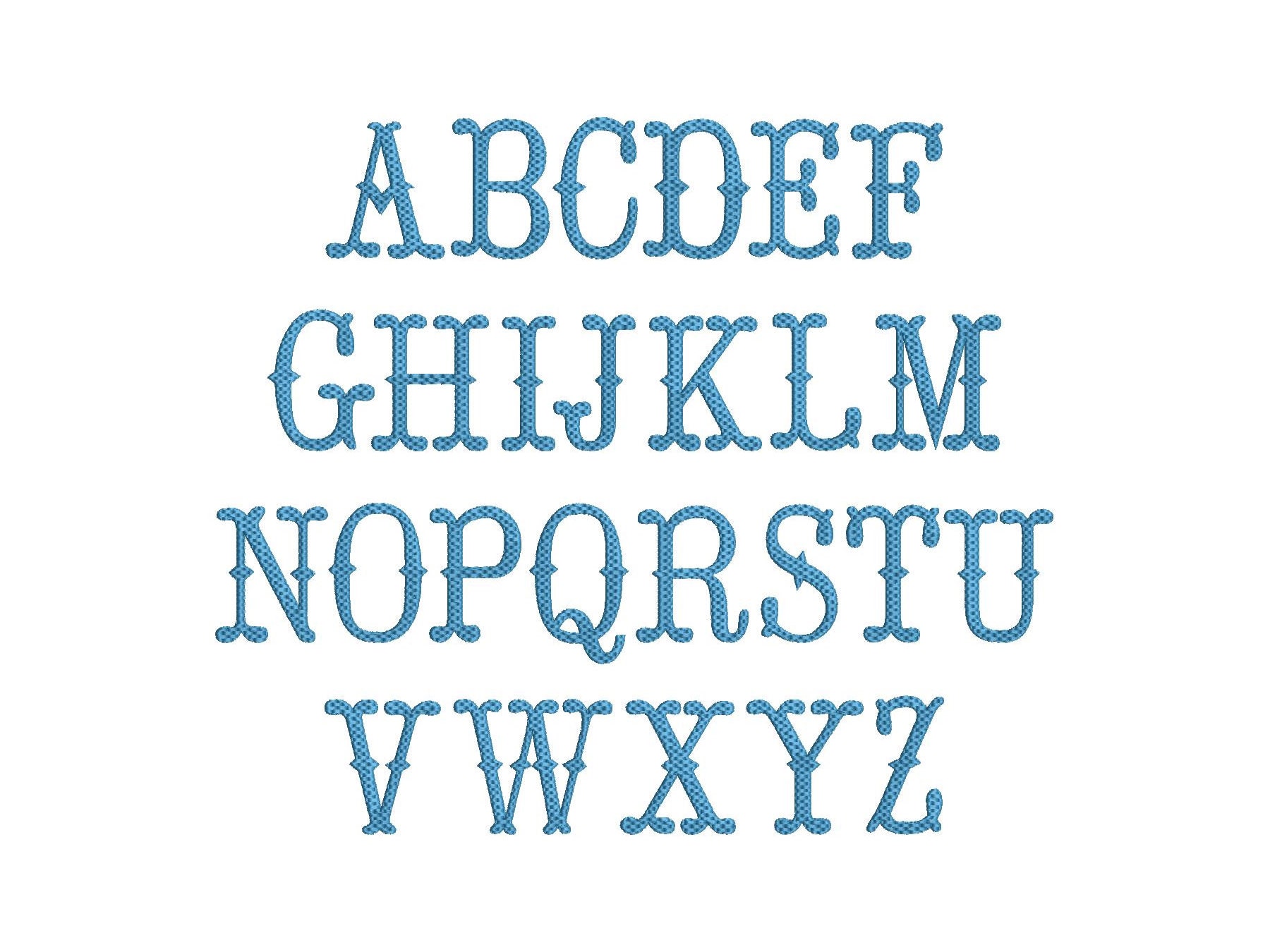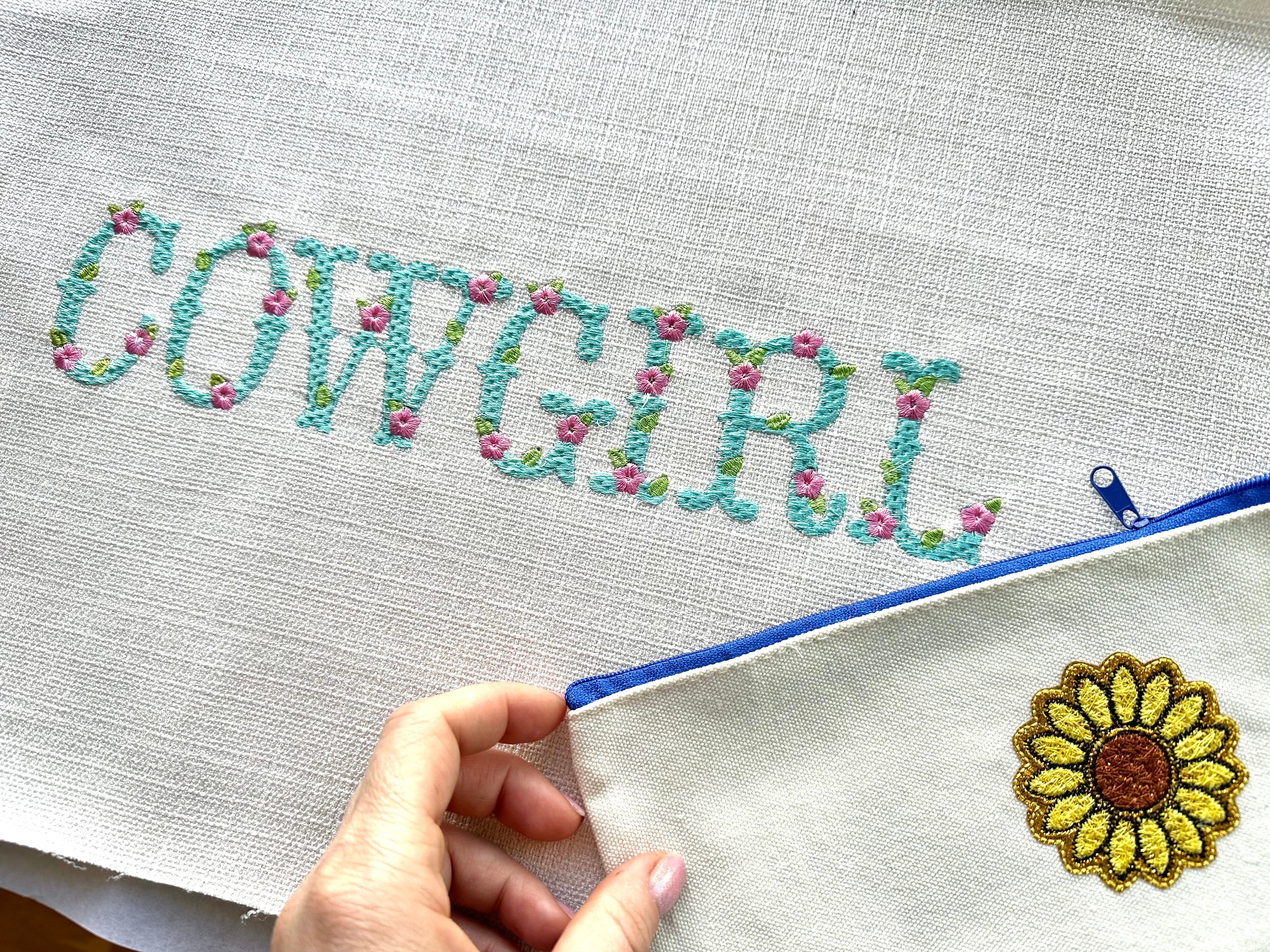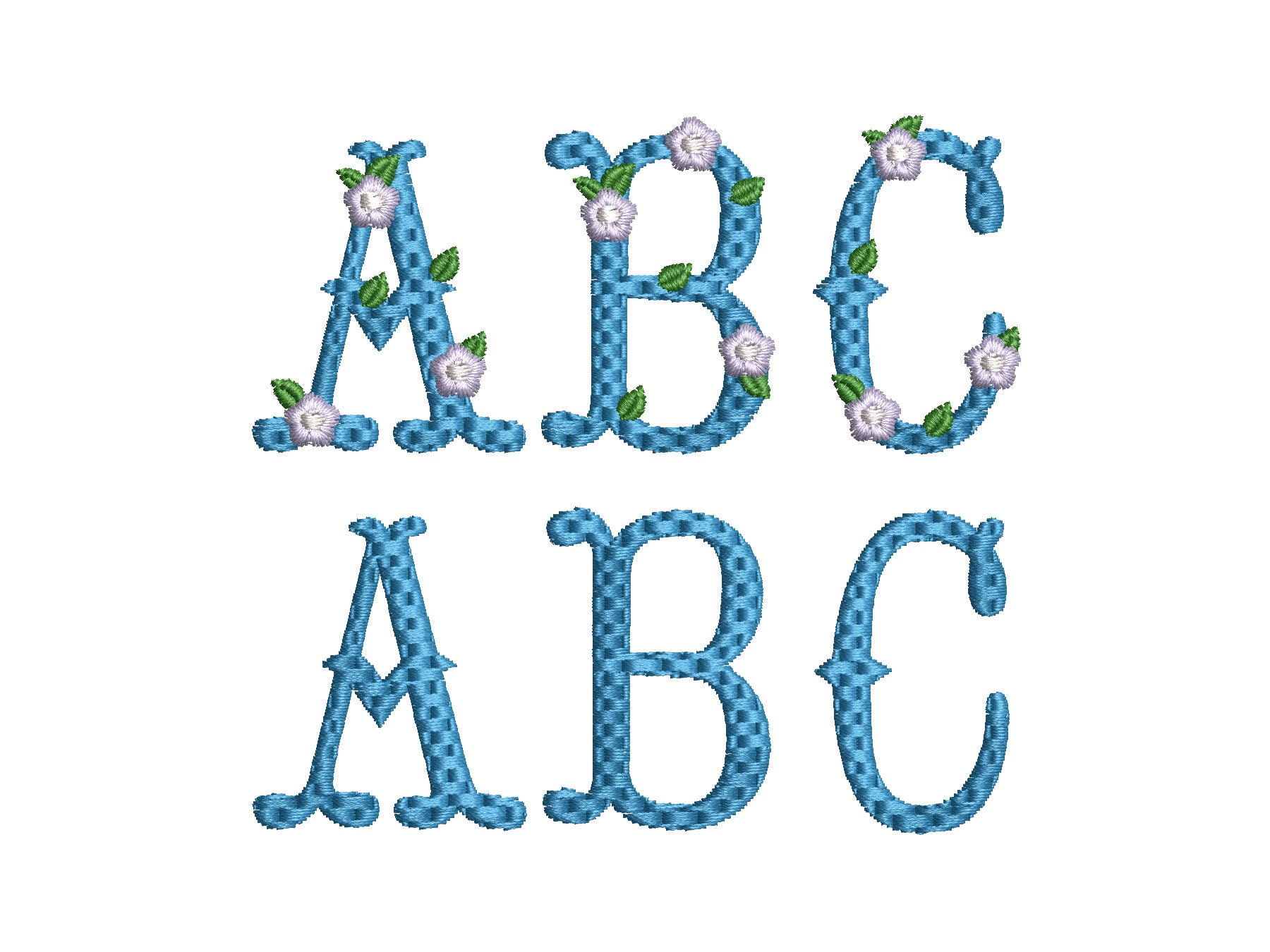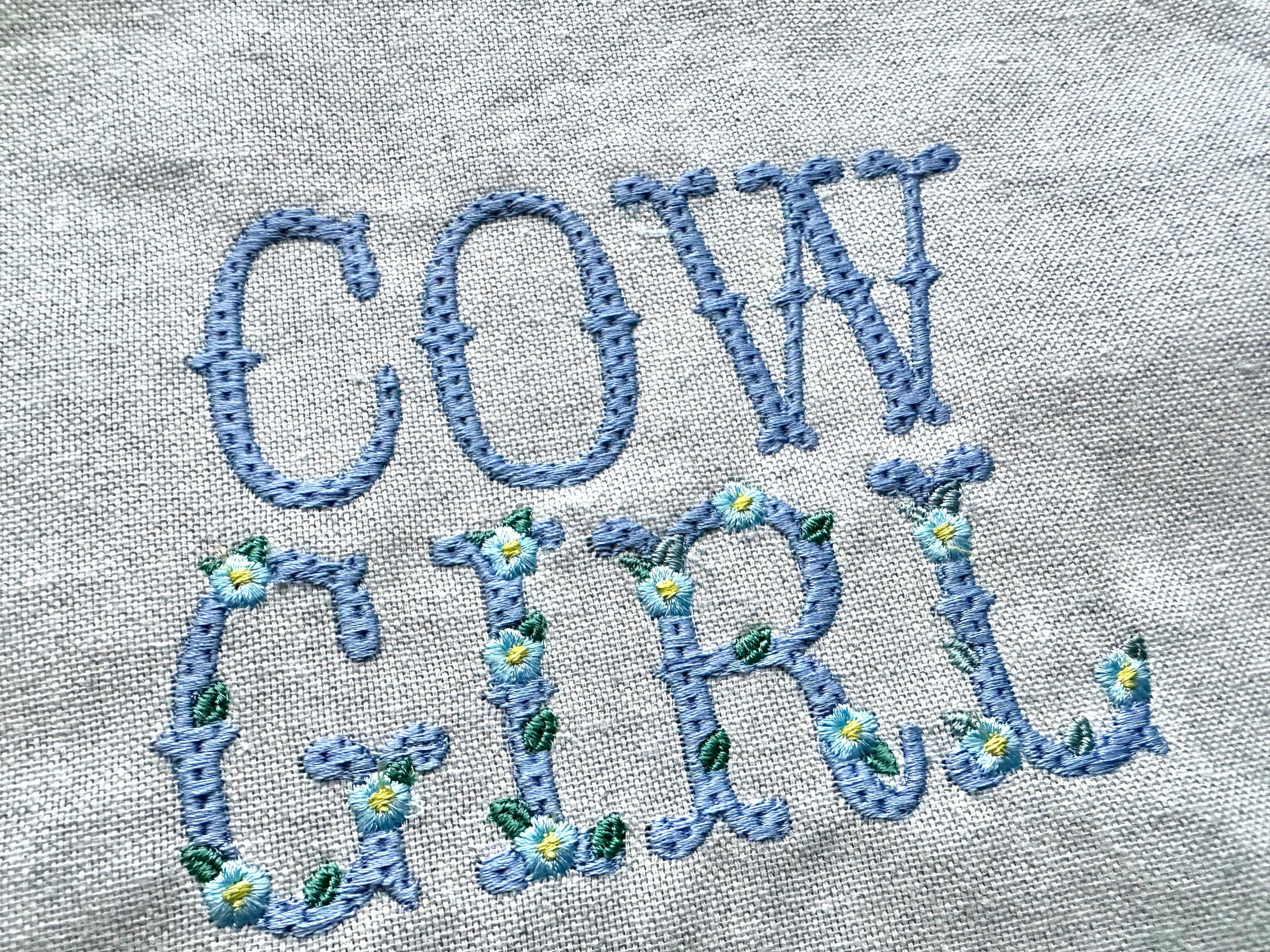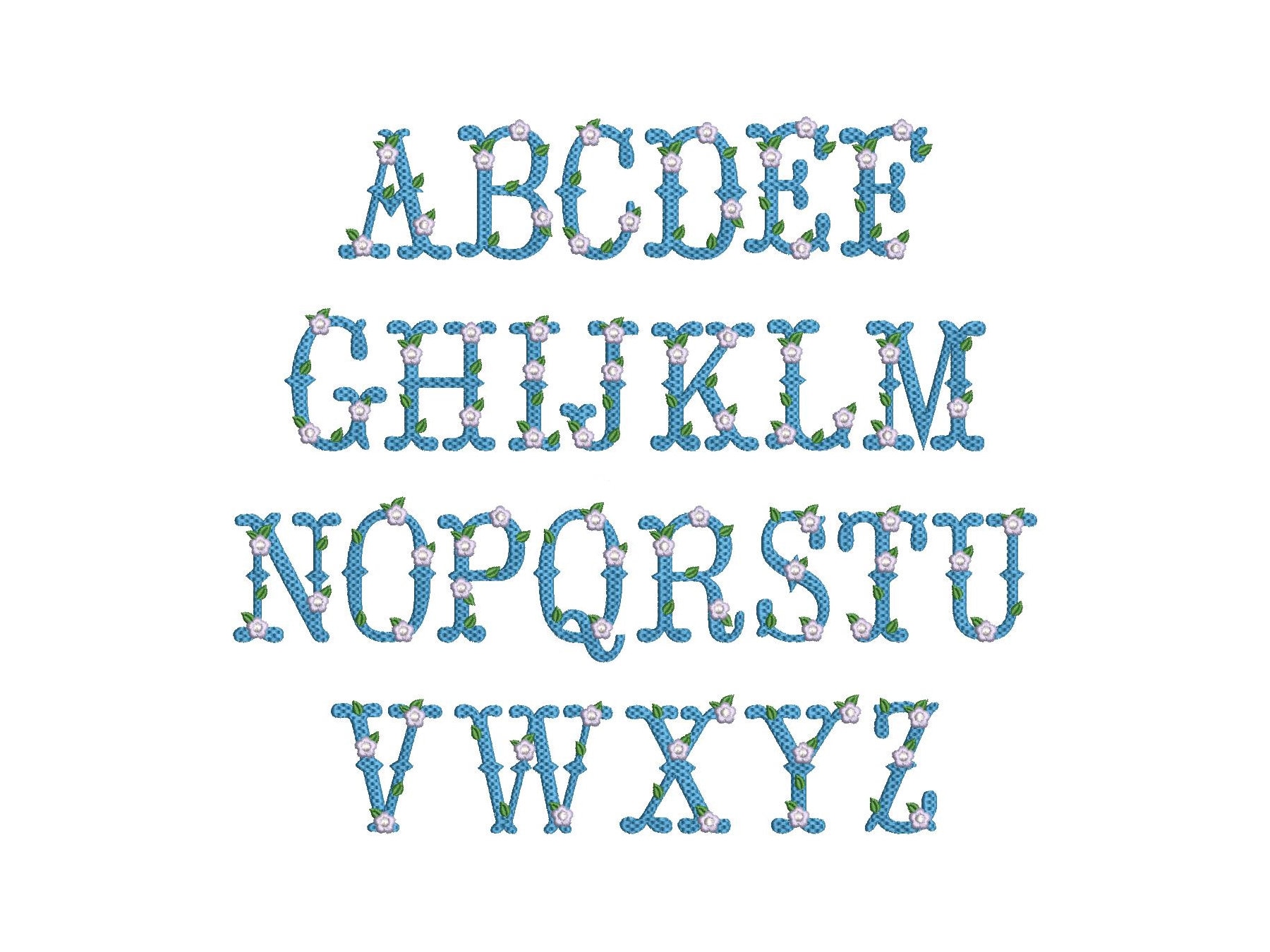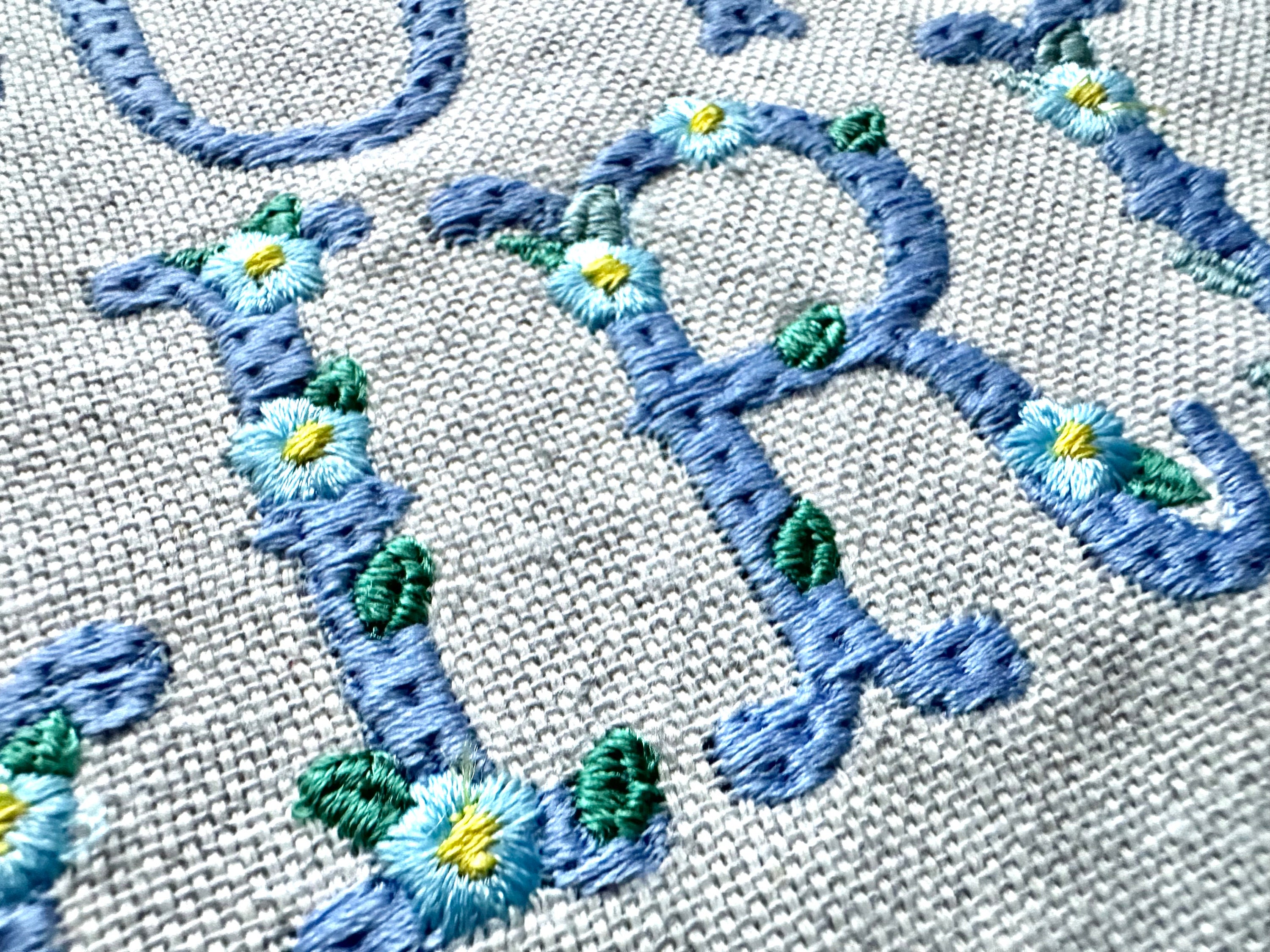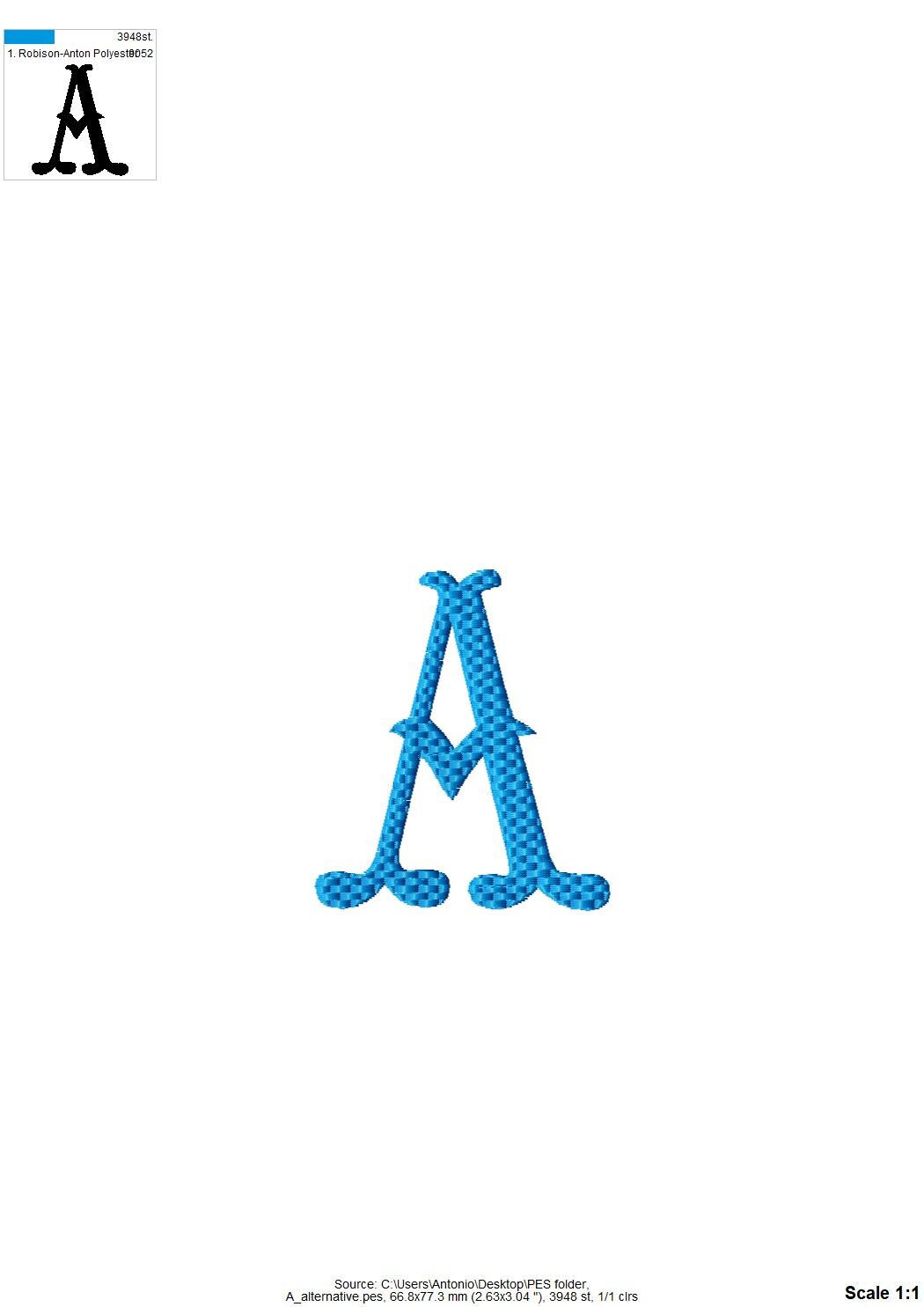
Fishtail Floral Font and Basic Font SET of 2 alphabet Waffle Stitch monogram letters machine embroidery designs sizes 2 thru 4.5 inch, BX
Set of 2 fonts
* textured floral font
* textured basic font without flowers
Both fonts are in identical sizes, making it easy to combine and merge them as you wish.